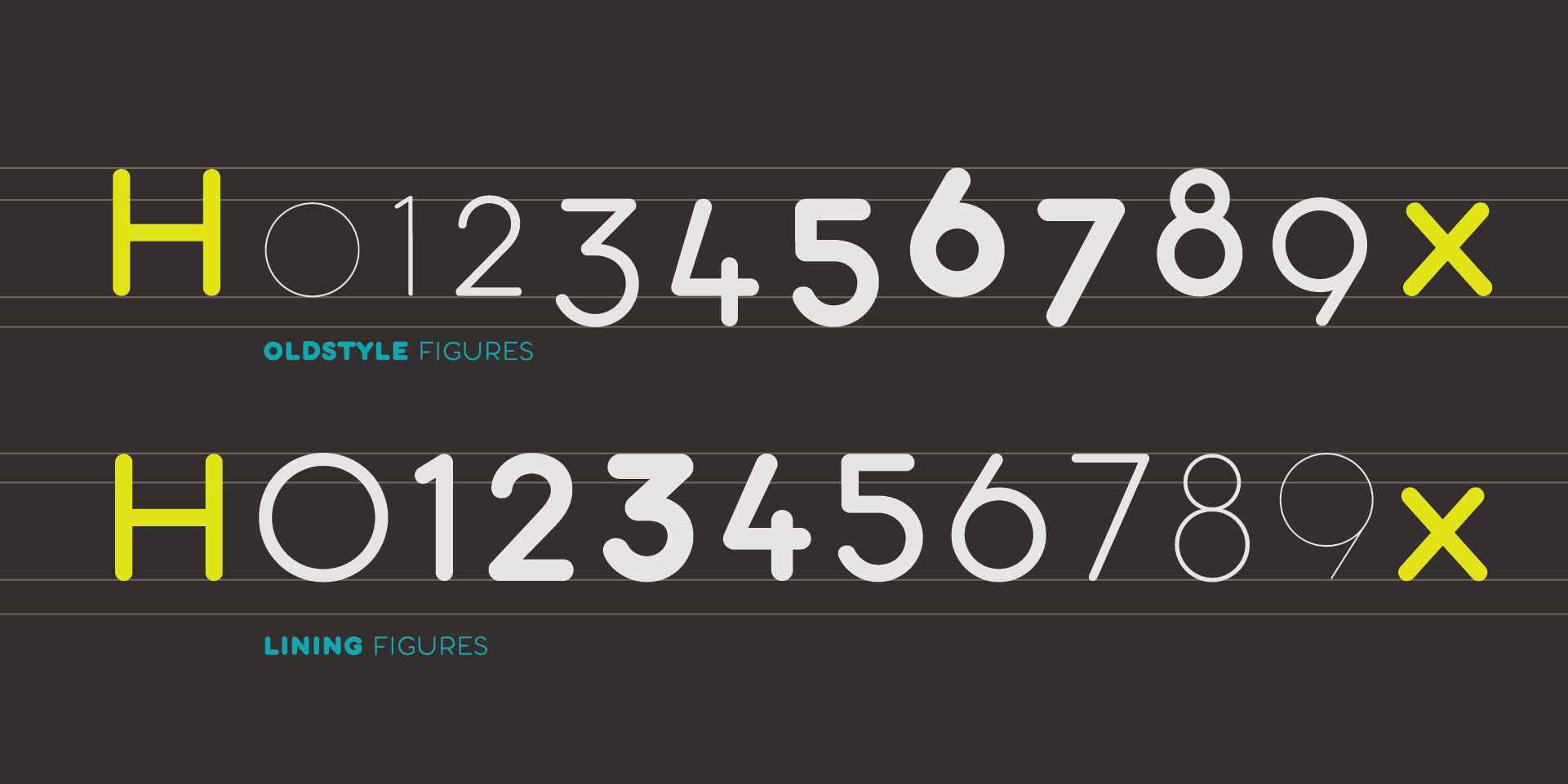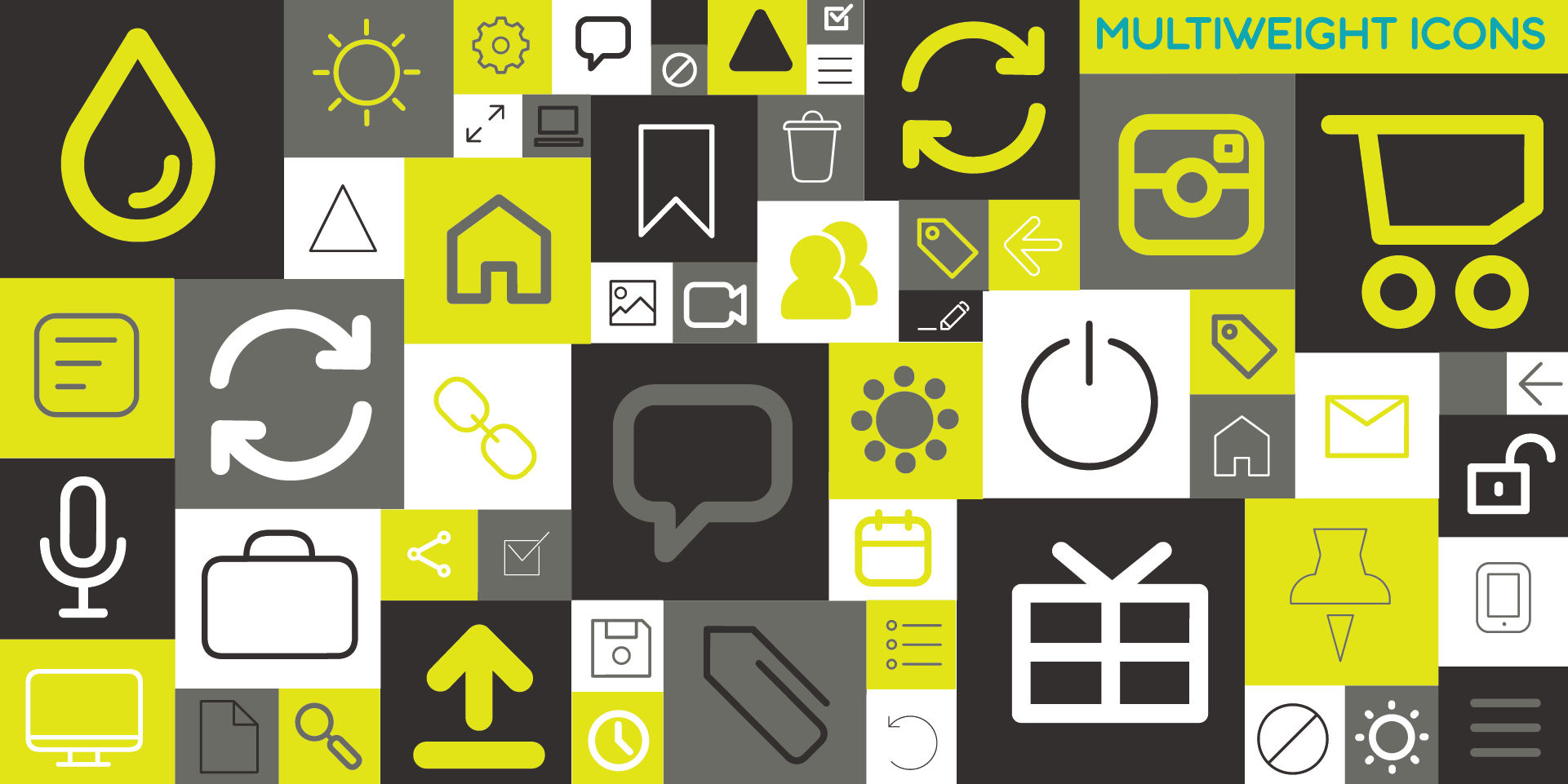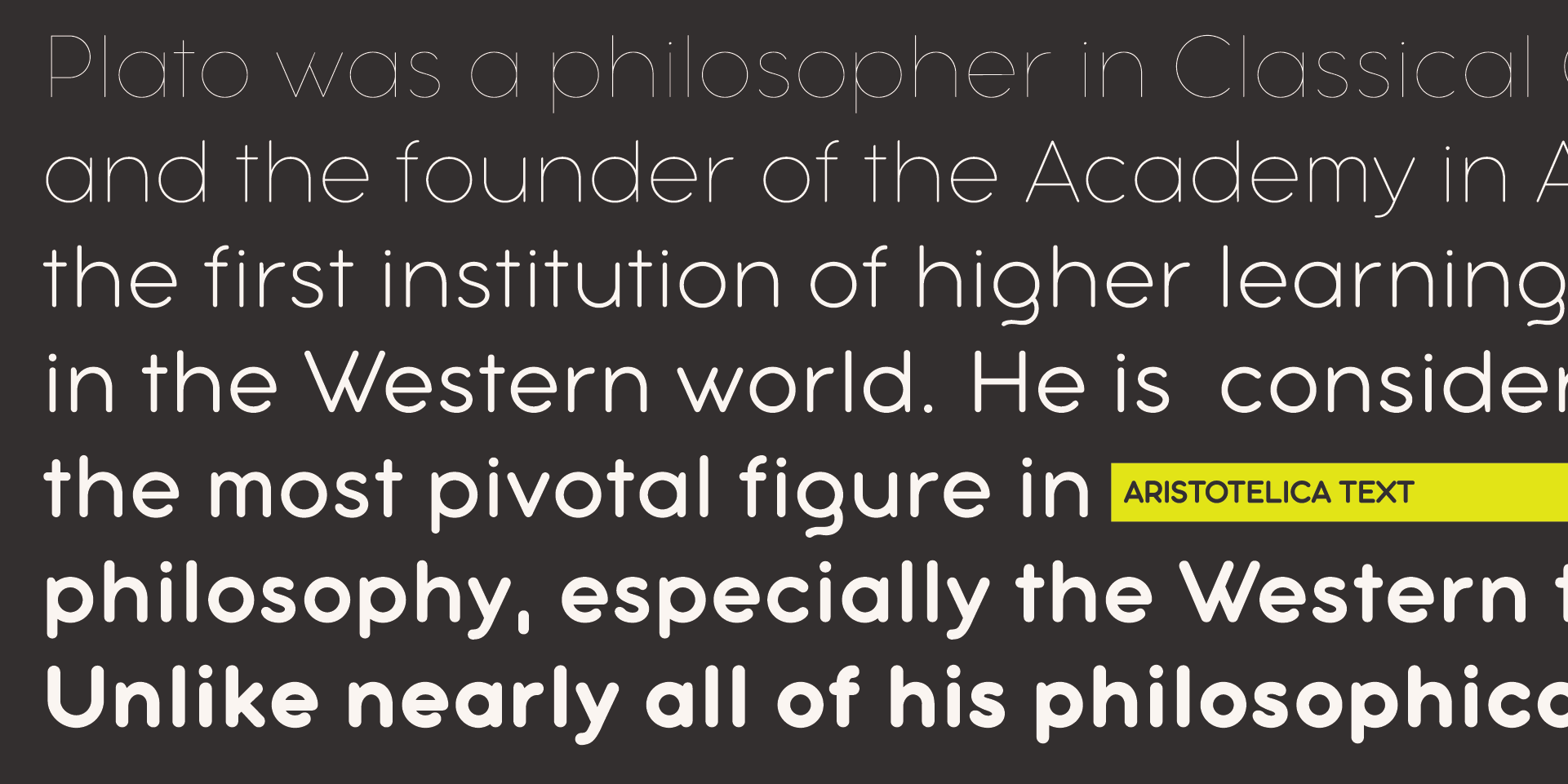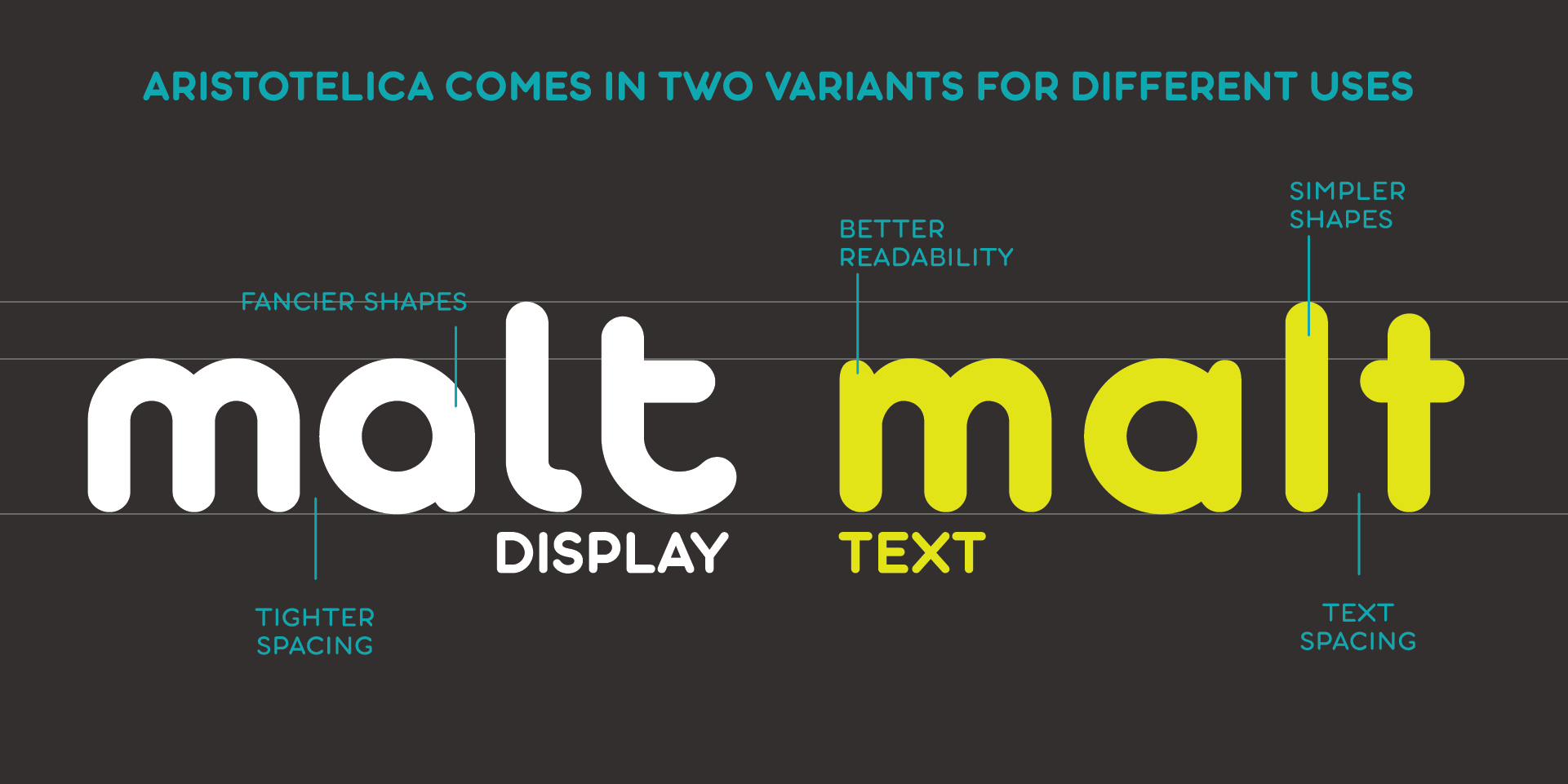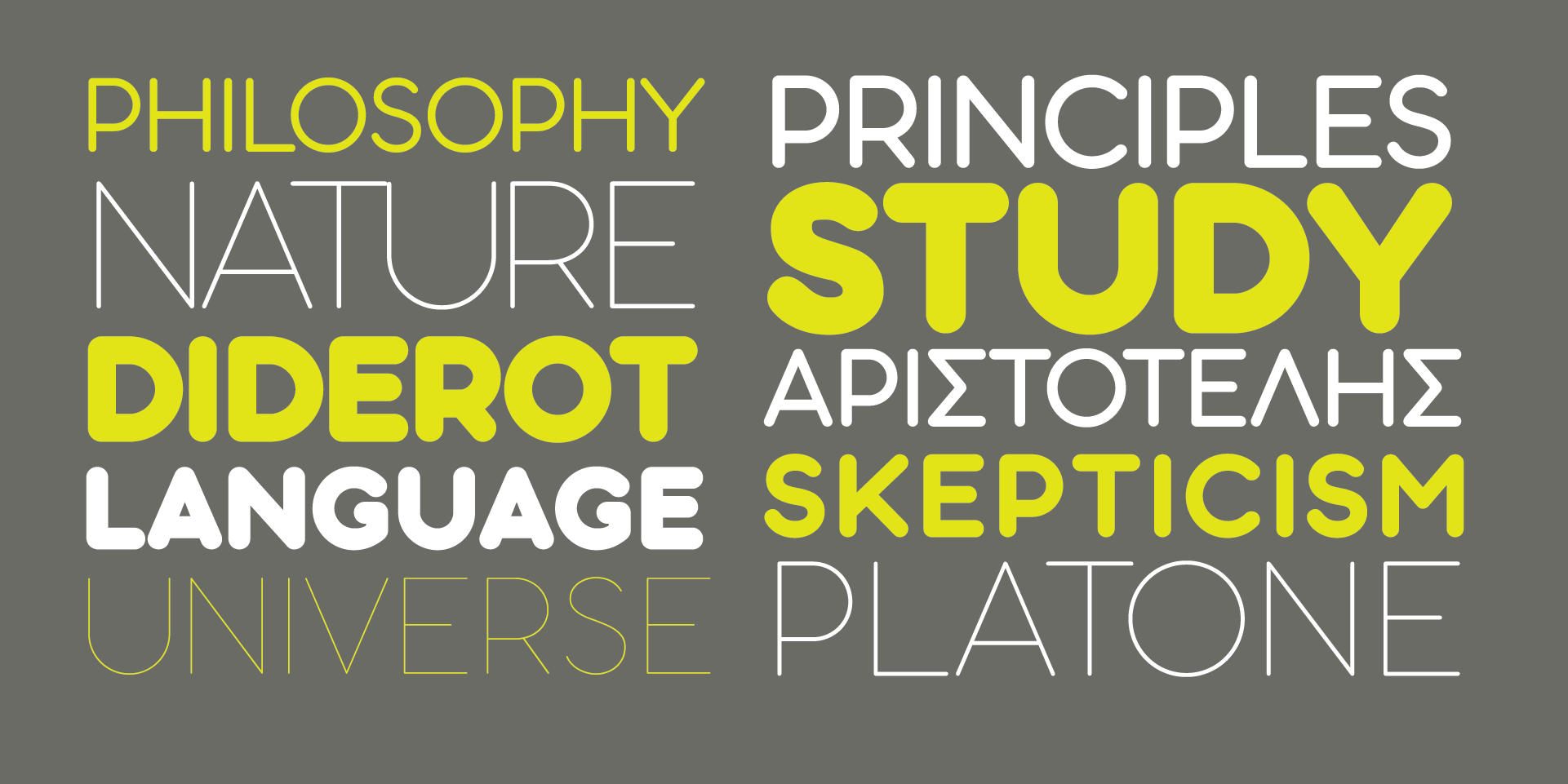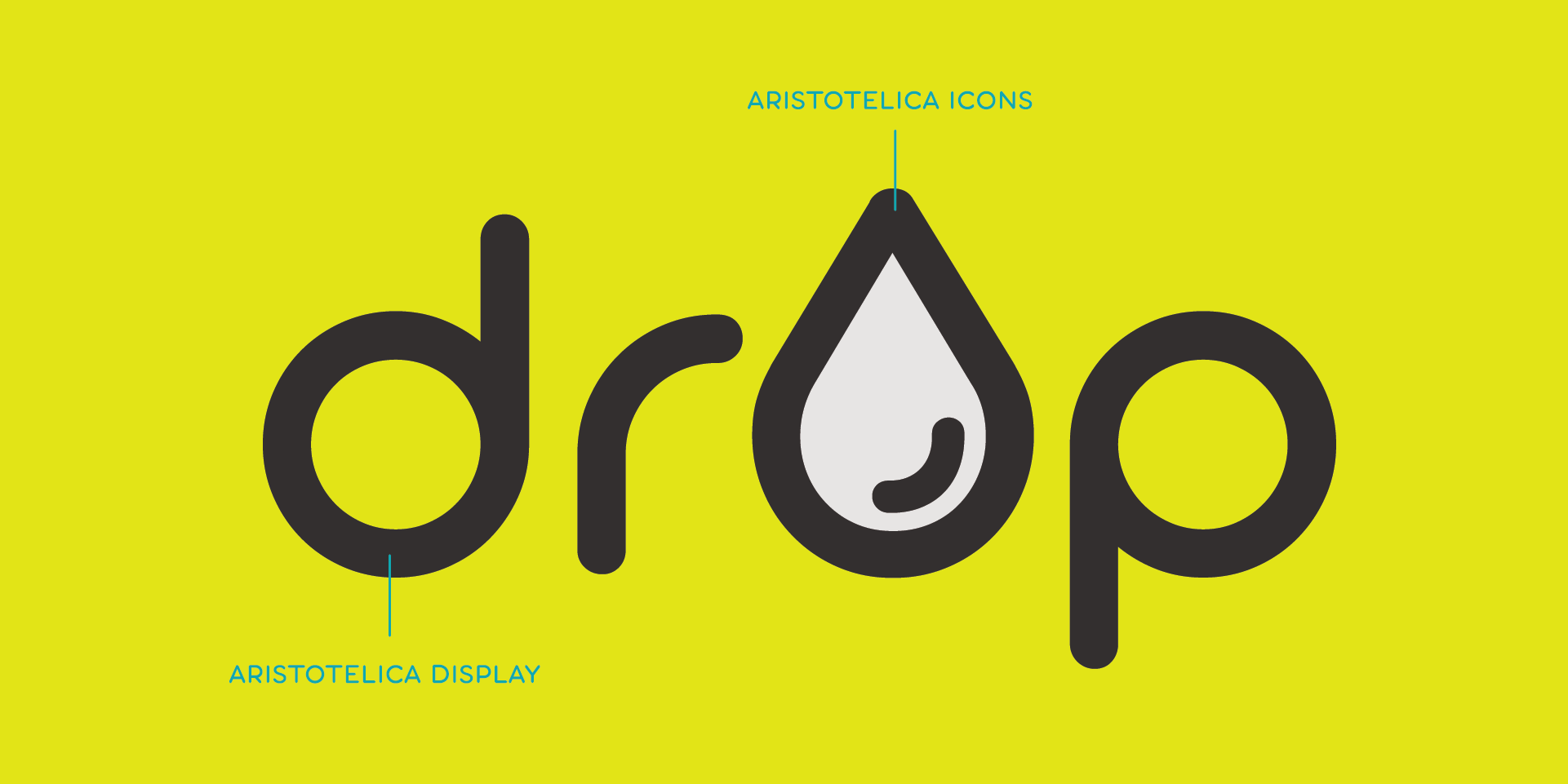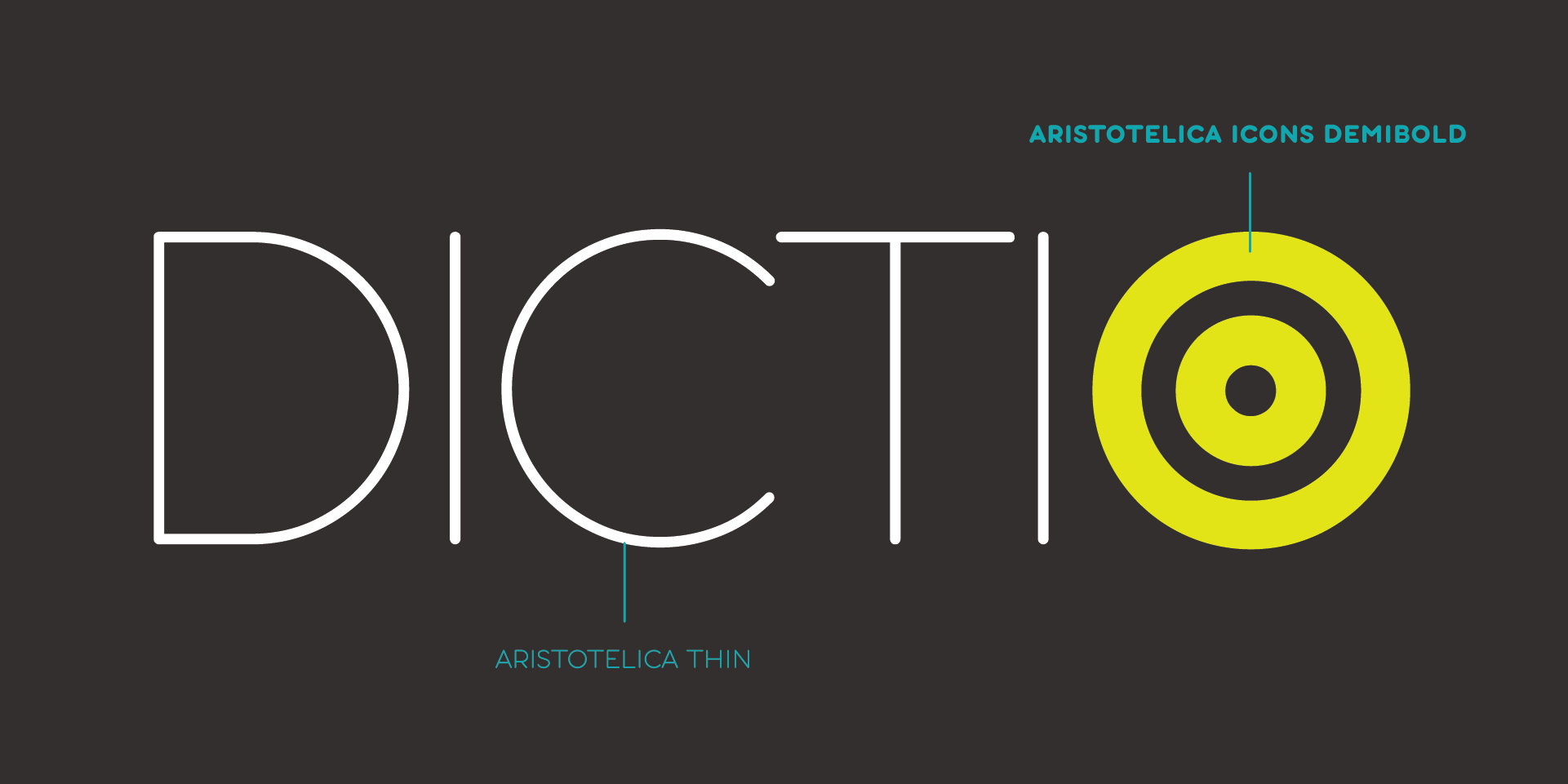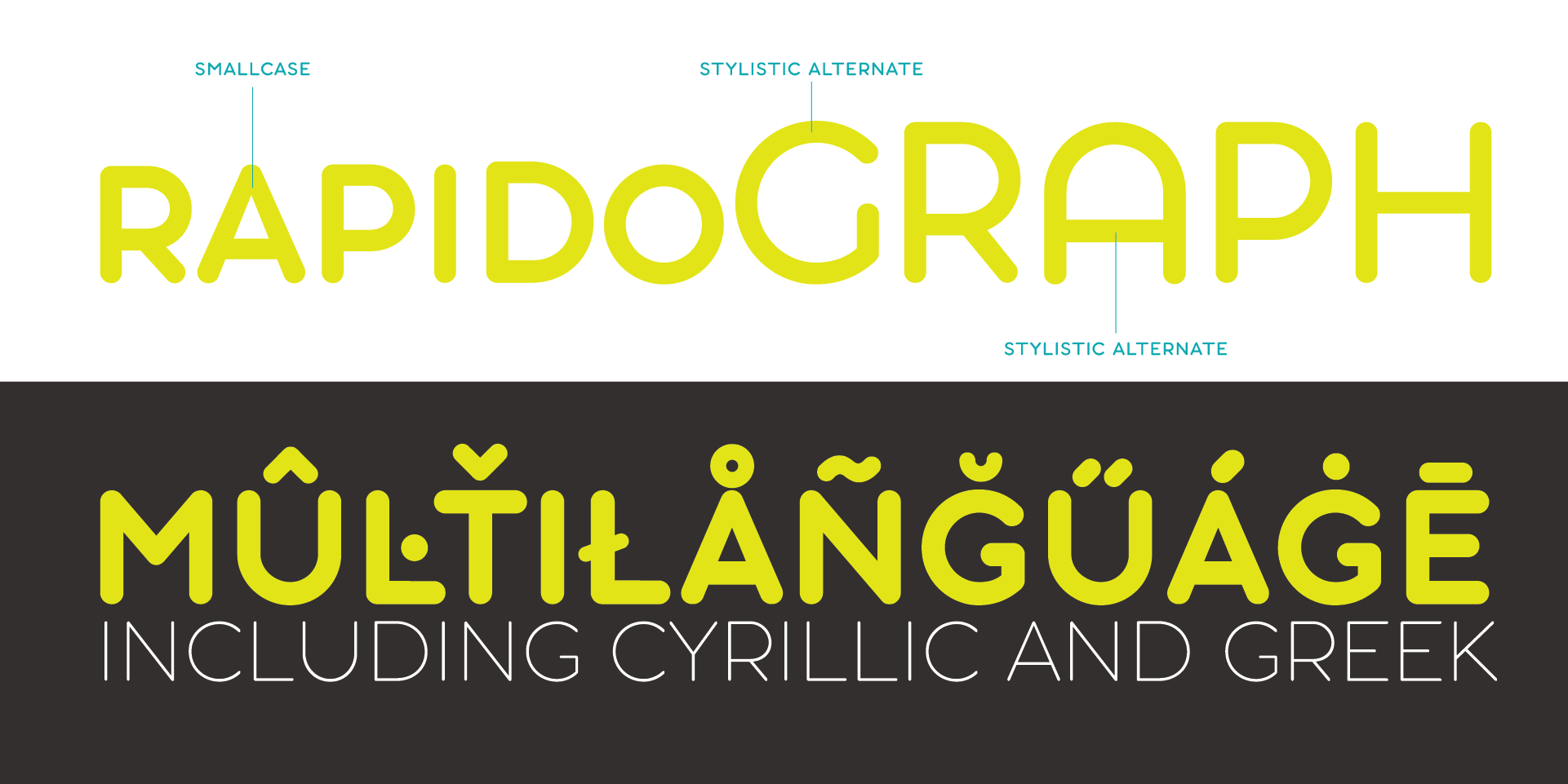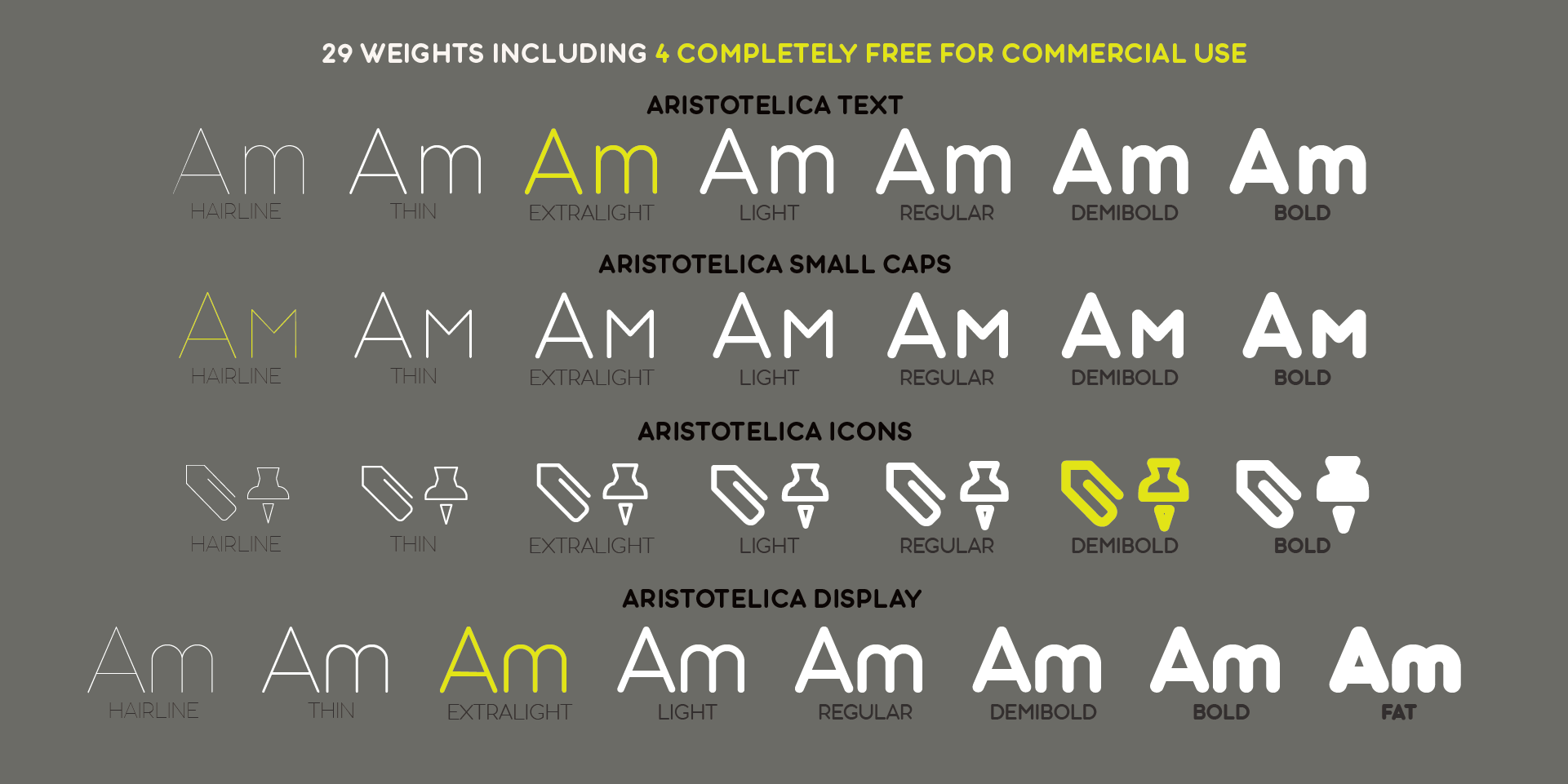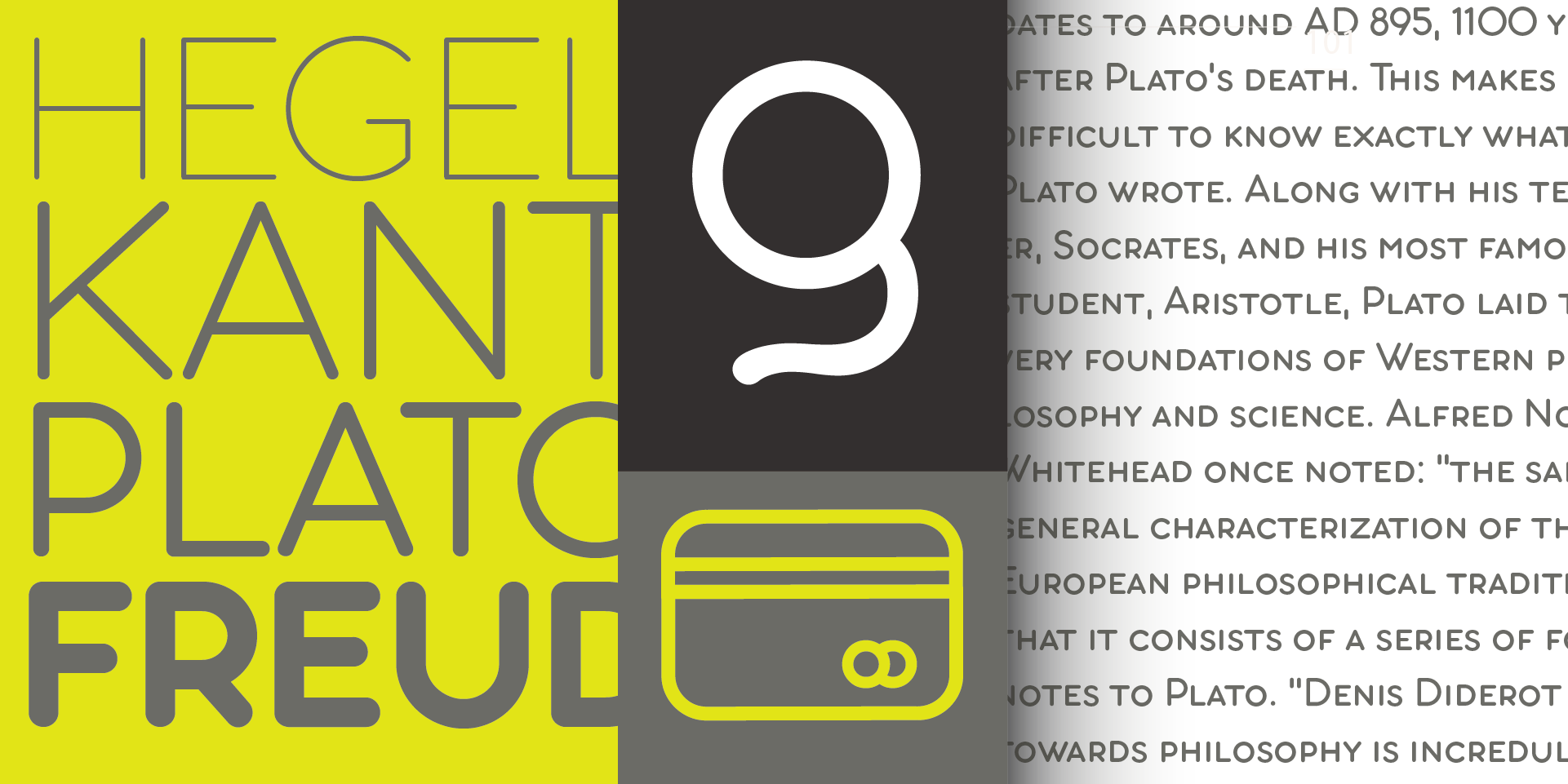
Designed by Cosimo Lorenzo Pancini released in 2017
Aristotelica is a sans serif rounded geometric type family designed by Cosimo Lorenzo Pancini and Andrea Tartarelli developing the original philosophy of one of the classic and best-selling Zetafonts typefaces, Arista by Francesco Canovaro. Conceived as an exercise in restraint and simplicity, Aristotelica is typographic eulogy to the simple beauty of circular shapes. It shows its strengths mostly in display uses and logo design, with a palette of moods ranging from the stark elegance of the uppercase  Show all